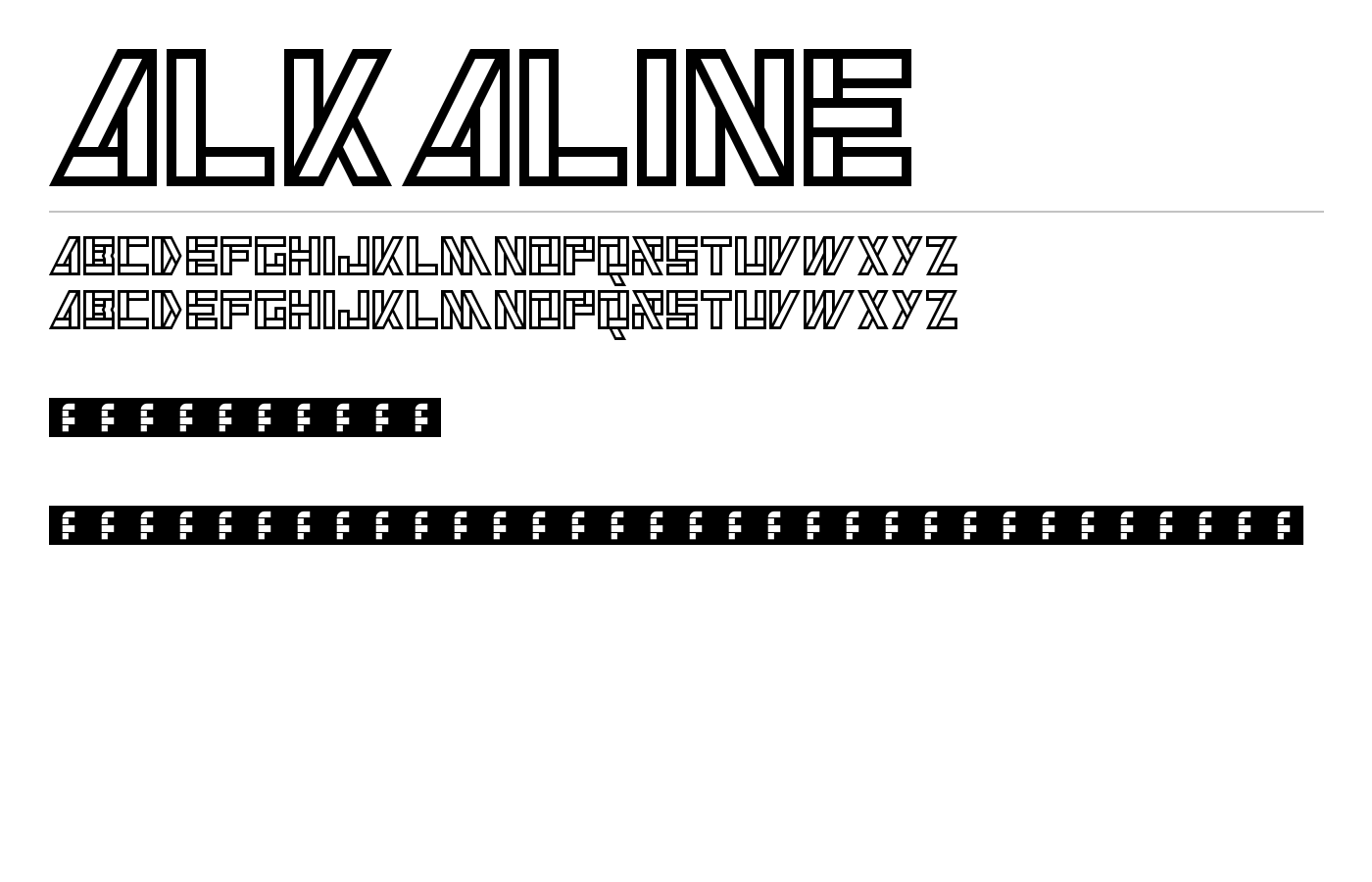
Alkaline is a bold, geometric sans-serif display font characterized by its sharp, angular shapes and distinctive outline structure, giving it a modern, futuristic vibe. Its condensed letterforms and high contrast between the thick outer strokes and thin inner lines create a dynamic, eye-catching style perfect for striking headlines, logos, and branding that demands a strong, tech-inspired presence. This font works well in contexts where a contemporary, edgy look is needed to convey energy and innovation.
Alkaline Font
About Alkaline Font